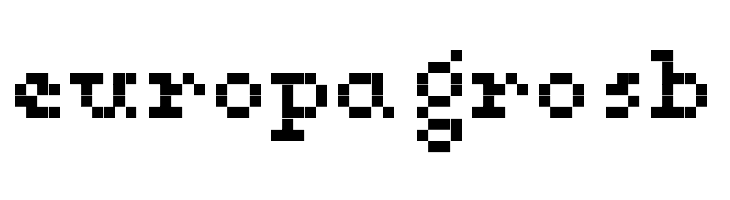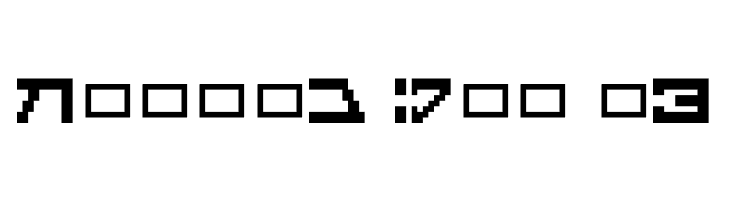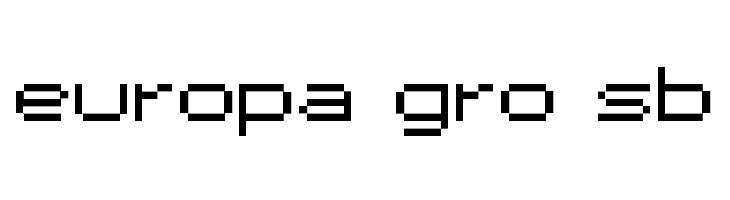
( Font by Sven Stuber - www.superlooper.de )
A pixelated, grid-like font with a retro digital aesthetic.
( Font by Sven Stuber - www.superlooper.de )
A pixelated, blocky font with a retro digital aesthetic.
( Font by Sven Stuber - www.superlooper.de )
A pixelated, retro-style font with a blocky, digital appearance.
( Font by Sven Stuber - www.superlooper.de )
A pixelated, blocky font with a retro digital aesthetic.